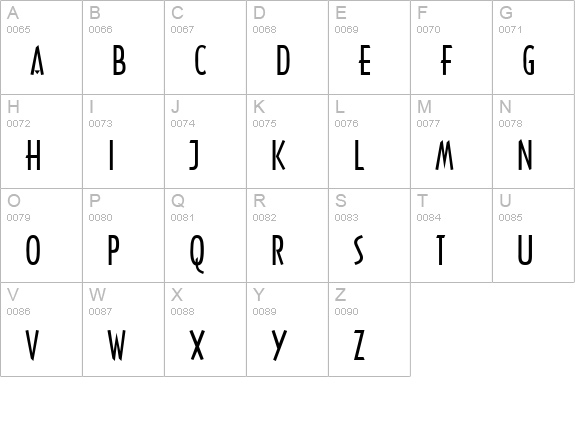
Tech Normal is the standard, neutral variant in the Tech typeface family \xE2\x80\x94 well suited to general body text, paragraphs, and standard typographic work.
Introducing Tech Normal font, the perfect blend of modernity and functionality. This versatile typeface is designed for those who seek a contemporary and sleek look in their designs. With its clean lines and balanced proportions, Tech Normal is ideal for various applications, such as branding, advertising, web design, and more. What sets Tech Normal apart is not only its exceptional aesthetics but also its accessibility. This font is freely available to download at FontsMarket.com, allowing designers and enthusiasts alike to effortlessly incorporate it into their projects. Whether you're a professional designer looking to elevate your work or an aspiring creative exploring the world of typography, Tech Normal is the perfect addition to your font library. With its extensive character set and multiple weights, Tech Normal offers endless possibilities for creative expression. From bold headlines to refined body text, this font adapts seamlessly to any design concept, enhancing the visual impact and readability of your content. Tech Normal's versatility doesn't stop there - it is designed to be legible across various mediums, including print and digital platforms. Its well-defined letterforms ensure optimal clarity, making it suitable for both small and large-scale applications. Embrace the power of Tech Normal and elevate your designs with its contemporary appeal and unparalleled usability. Download this remarkable font for free at FontsMarket.com and unlock a world of creative possibilities.